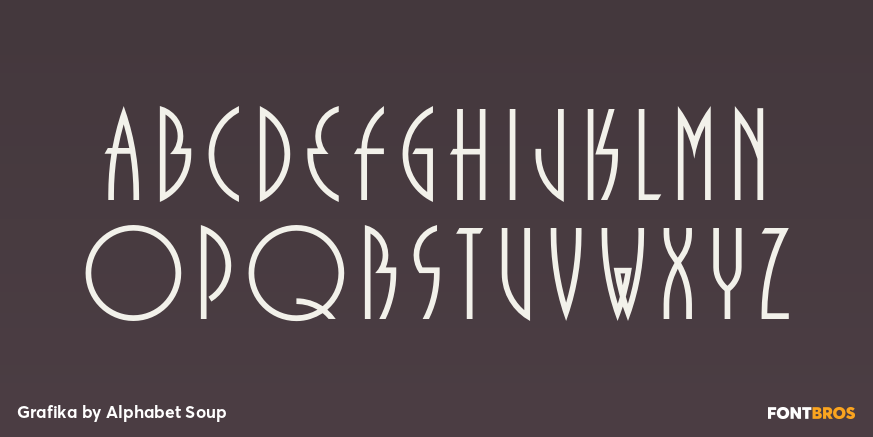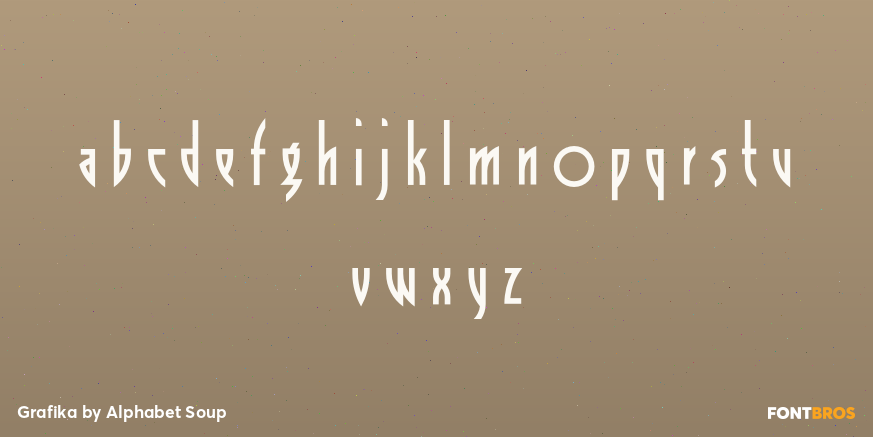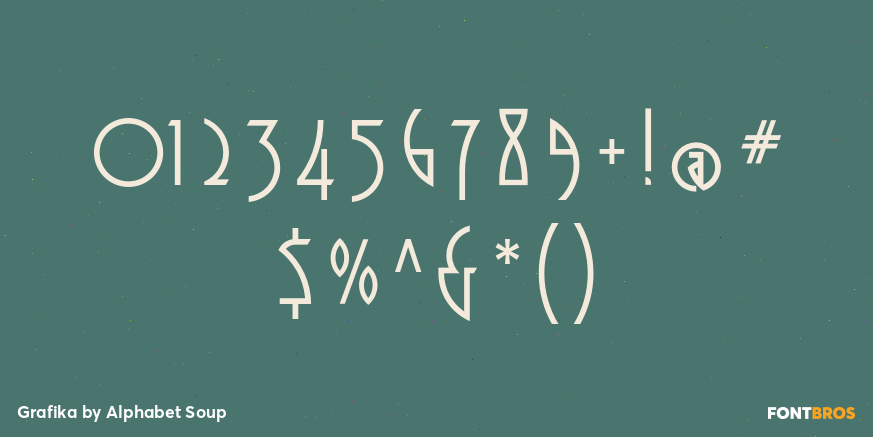
Grafika
Font Family by Alphabet Soup
Buy NowTo all outward appearances Grafika would seem to be an Art Deco revival font. However Grafika is a completely original, Michael Doret designed font that began its life many years ago in the titles and credits for the Merchant/Ivory film "Savages". Michael recently found his original designs for Grafika and gave them new life by digitizing and fleshing out the font to over 250 glyphs.